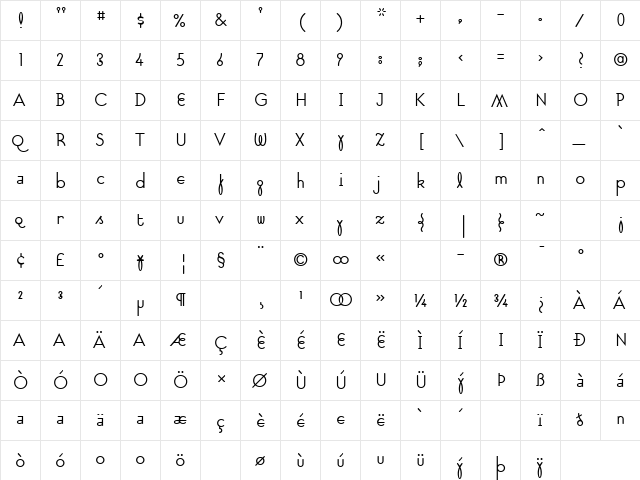
SuburbanLight Regular
Design Context for SuburbanLight Typeface
SuburbanLight is a composed and adaptable typeface that performs quietly and consistently across a wide range of design contexts. The delicate stroke weight brings airiness and refinement to layouts.